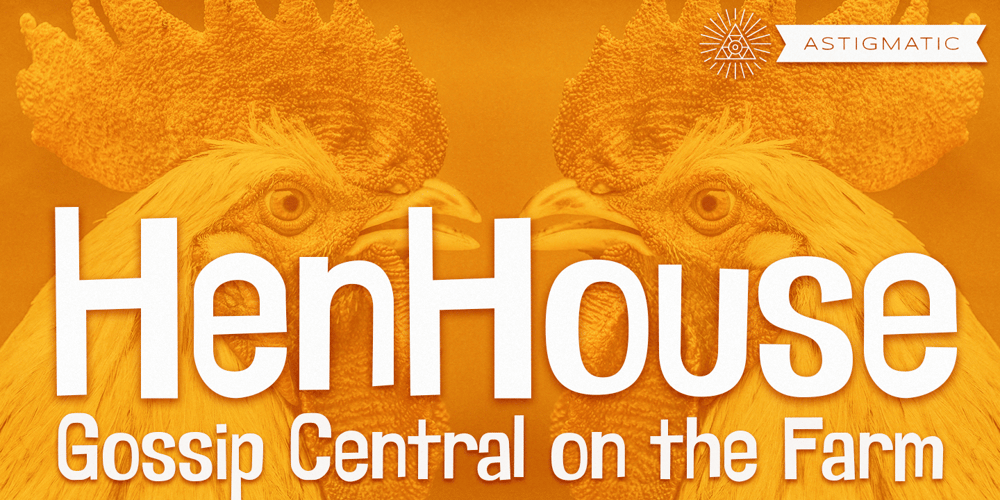
HenHouse AOE
HenHouse AOE font
HenHouse AOE Font Family was designed by Brian J. Bonislawsky and published by Astigmatic. HenHouse AOE contains 1 styles and family package options. HenHouse is an offbeat comic sans-serif typestyle full of wonky bounce. Inspired by the 1962 Merrie Melodies cartoon titled “Mother was a Rooster”, this typeface has all of the spunk of its source. The end result, a lively tribute to its origin, easy to read and fun to look at, a perfect typeface for childrens’ books, advertisements, and playful designs!